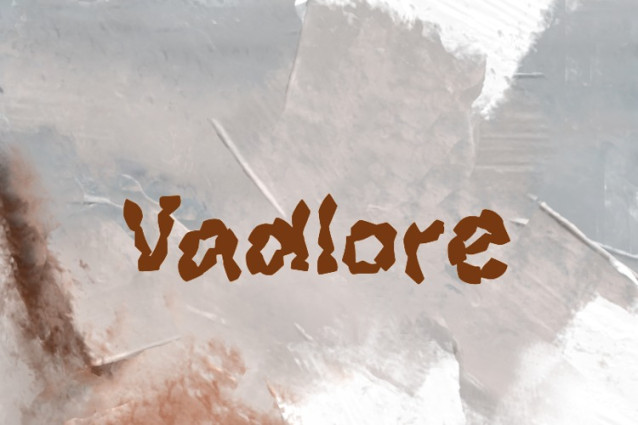
Vadlore Font
Vadlore Font, suitable for any design needs : logo, branding, modern advertising design, logos, poster quote, book / cover Title, editorial design, website / blog, card, t-shirts, and any hand-lettered needs.